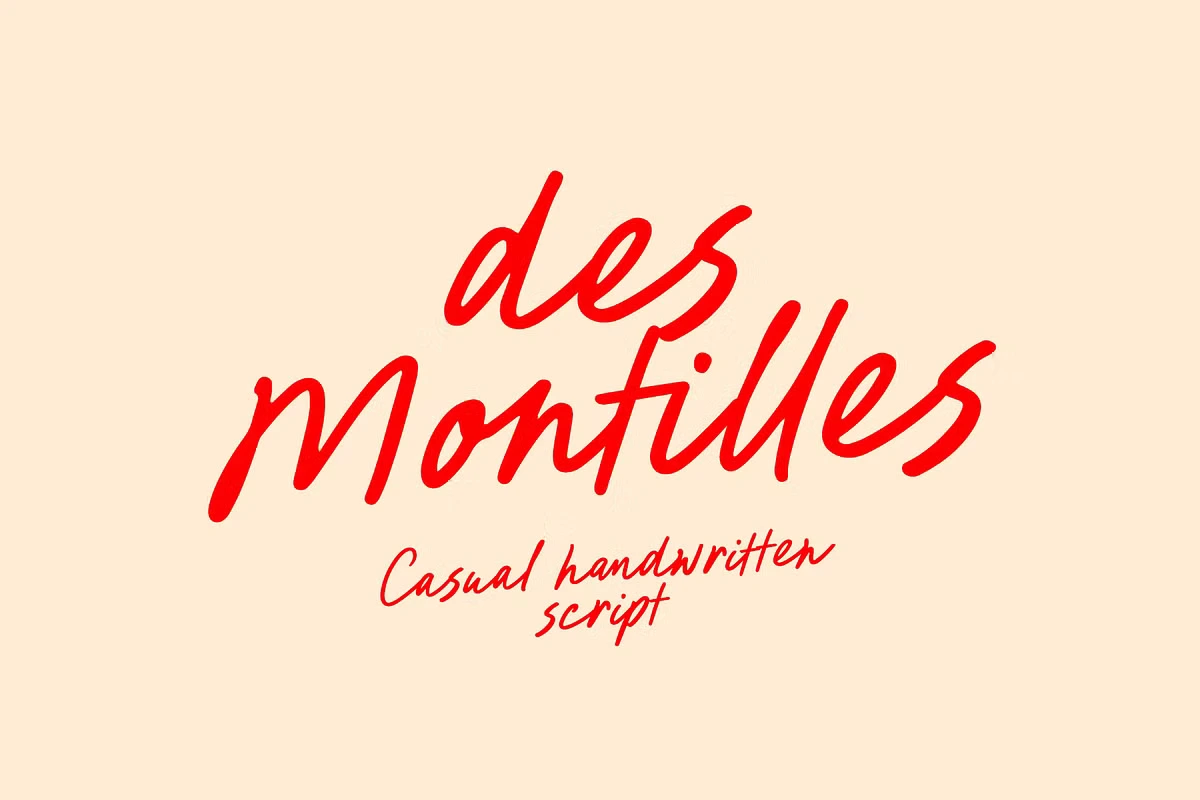
Des Montilles is a charming and versatile casual handwritten script font that effortlessly blends elegance with a touch of playfulness. Perfect for a wide range of creative projects, it adds a personal and artistic flair to branding, invitations, greeting cards, wedding stationery, photographer’s watermarks, logos, modern website designs, clothing labels, and so much more. Its unique character makes it a go-to choice for designers seeking to infuse warmth and sophistication into their work.
This exquisite typeface features special handwritten ligatures, stunning calligraphic initial and final letters for small caps, and delicate heart-shaped connections that add intricate detail to every design. Available exclusively in a Regular font style, Des Montilles comes in an OTF file format, ensuring seamless integration into your creative toolkit. Whether you’re crafting a romantic wedding invitation or a bold logo, Des Montilles brings your vision to life with its timeless handwritten charm.
Des Montilles Font